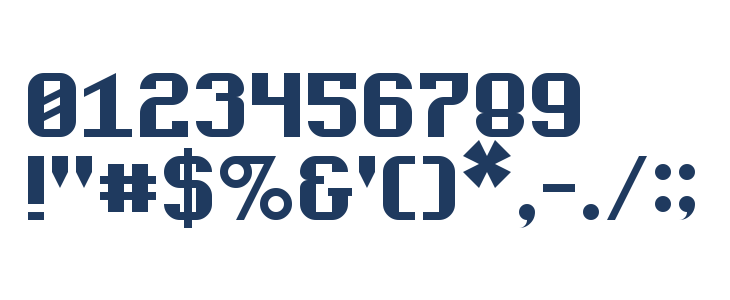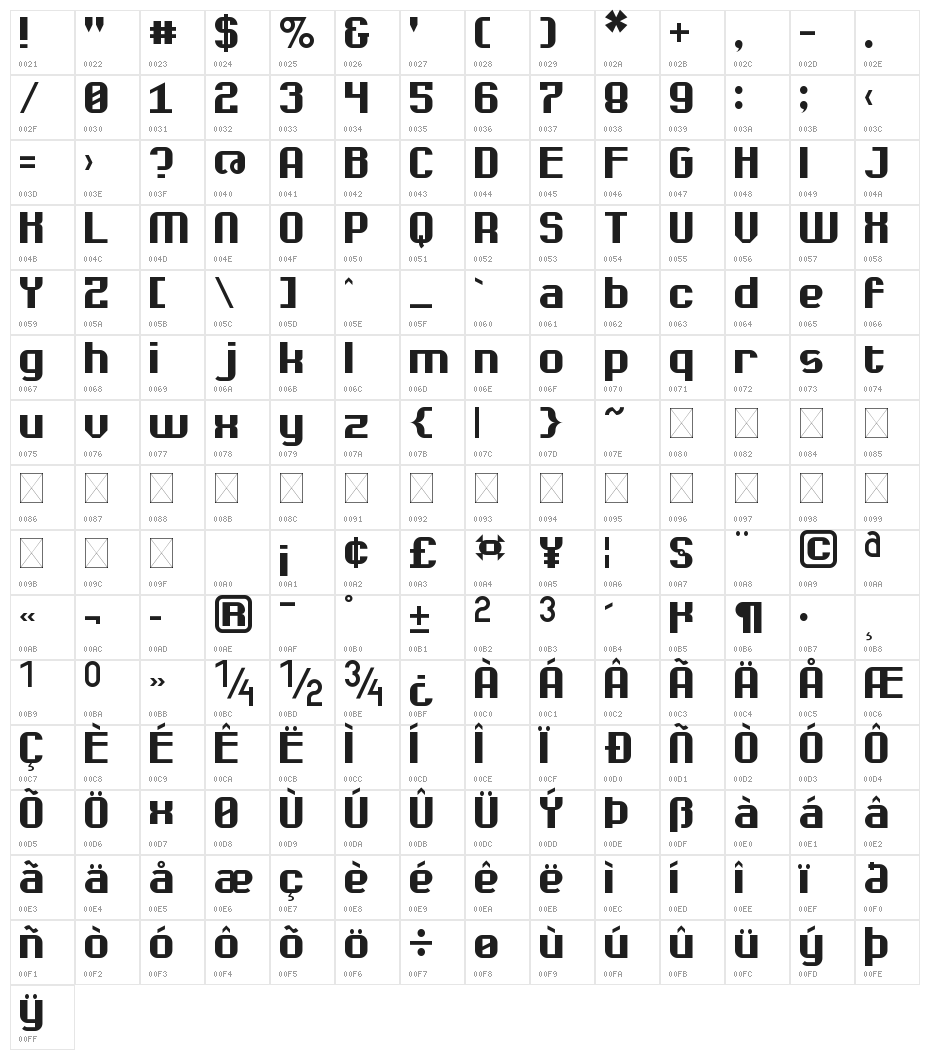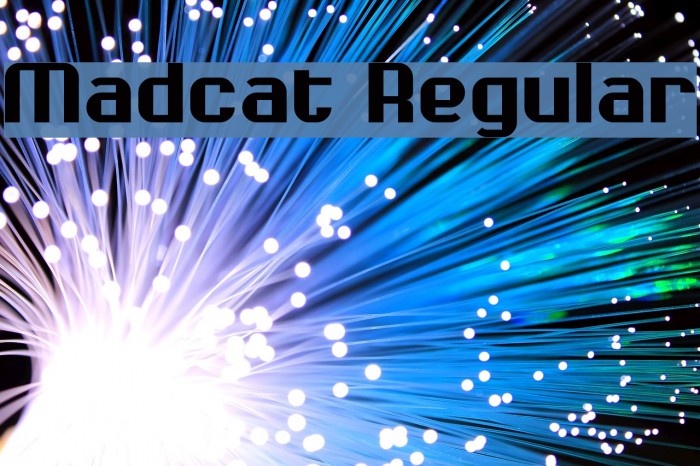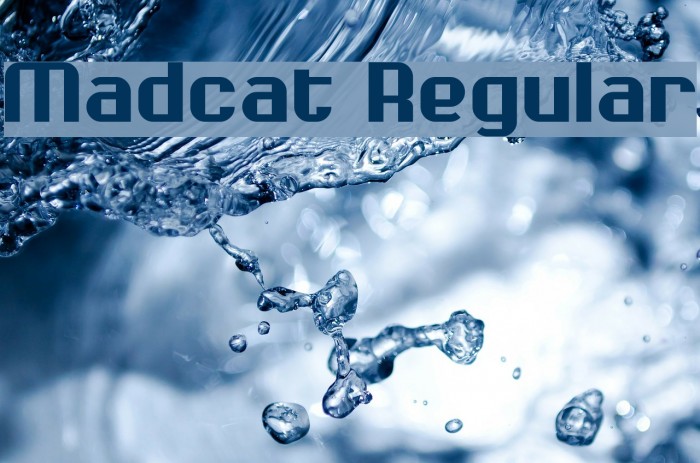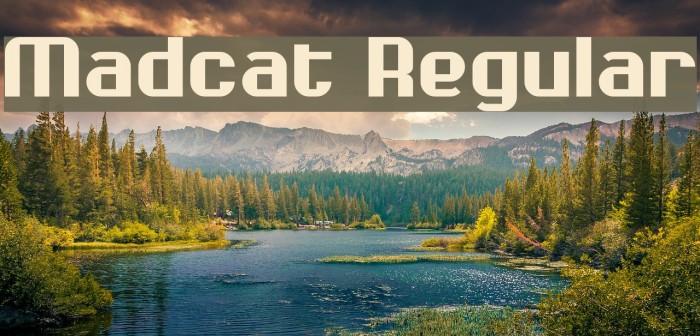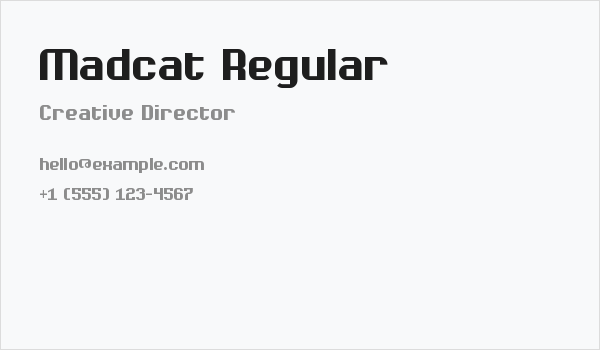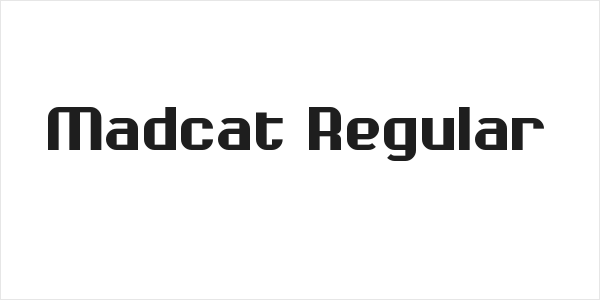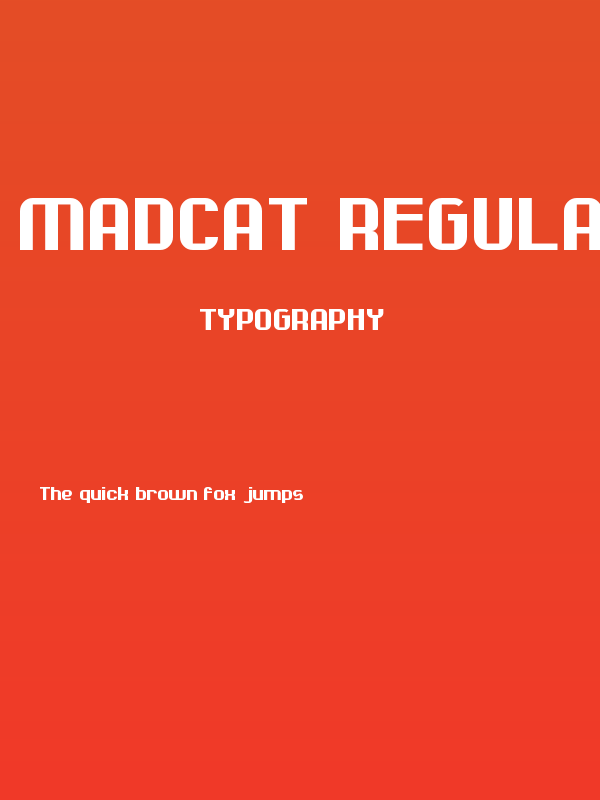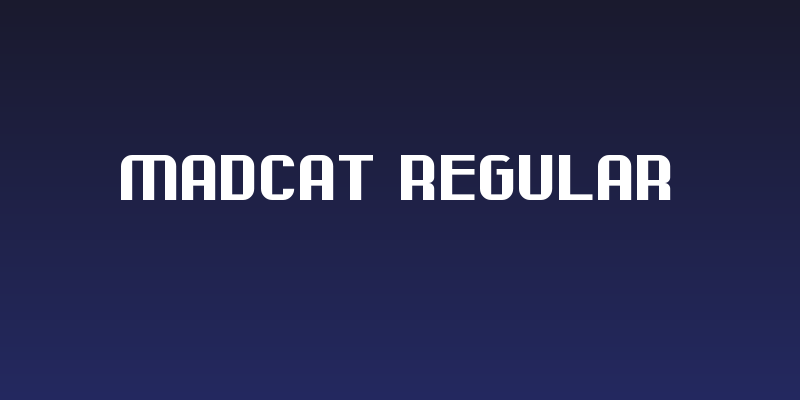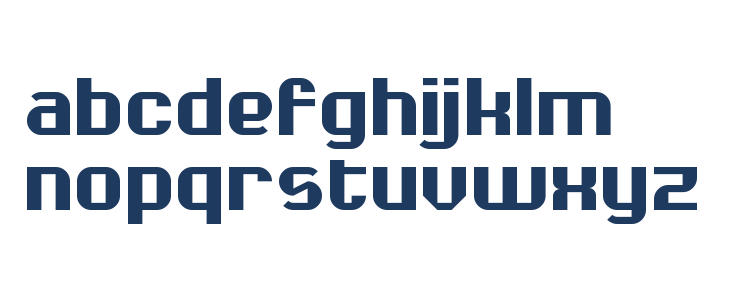
Madcat Regular Font
Madcat Regular Description
This font features a bold and modern design with a strong geometric structure. The characters are uniformly thick, providing a consistent and solid appearance. The uppercase letters have a distinct blocky style, while the lowercase letters maintain a similar weight, ensuring readability. The numbers are clear and robust, matching the overall aesthetic. Special characters are designed to complement the alphanumeric set, maintaining the font's cohesive look. The font's design is suitable for making a strong visual impact, with its bold lines and contemporary feel.